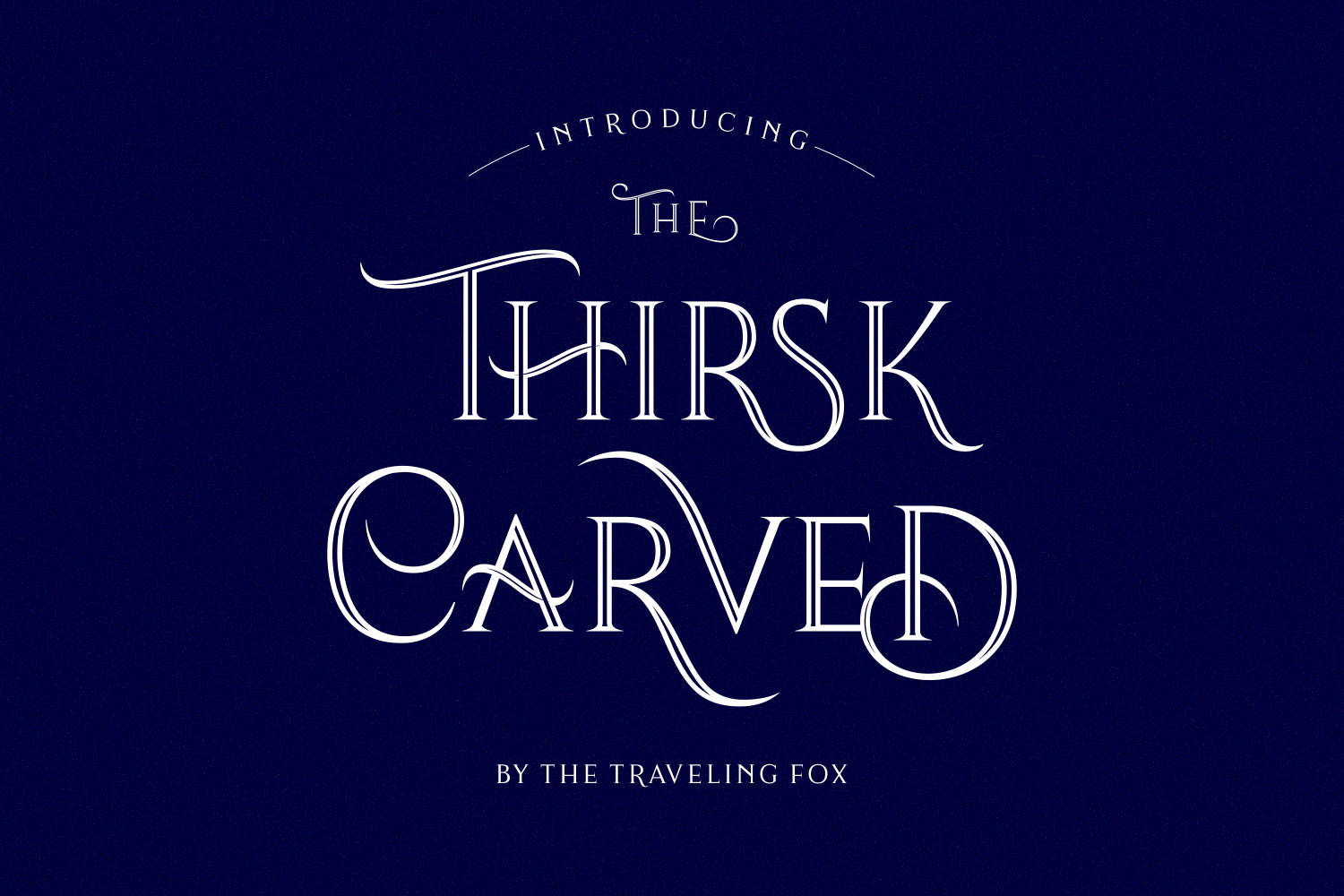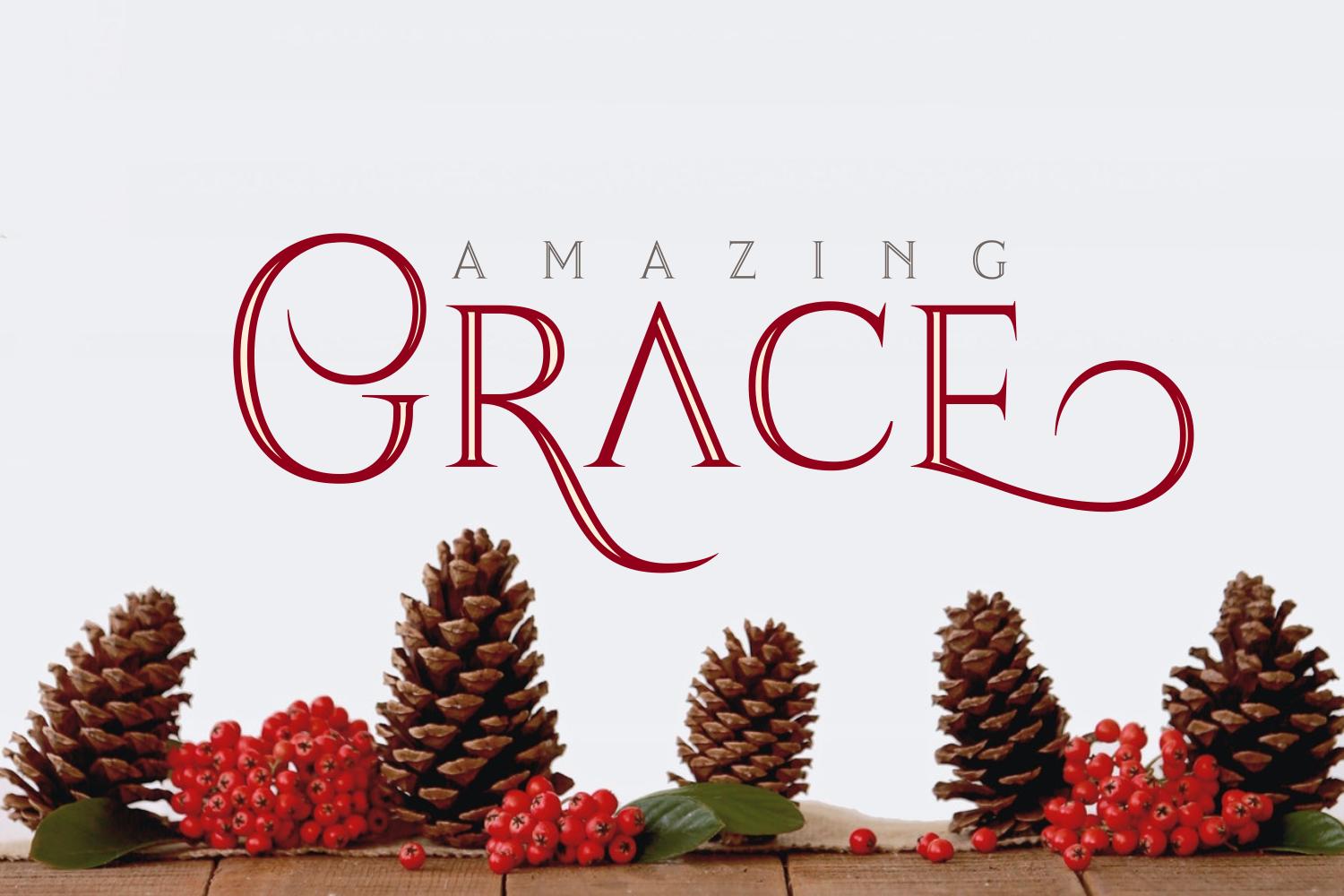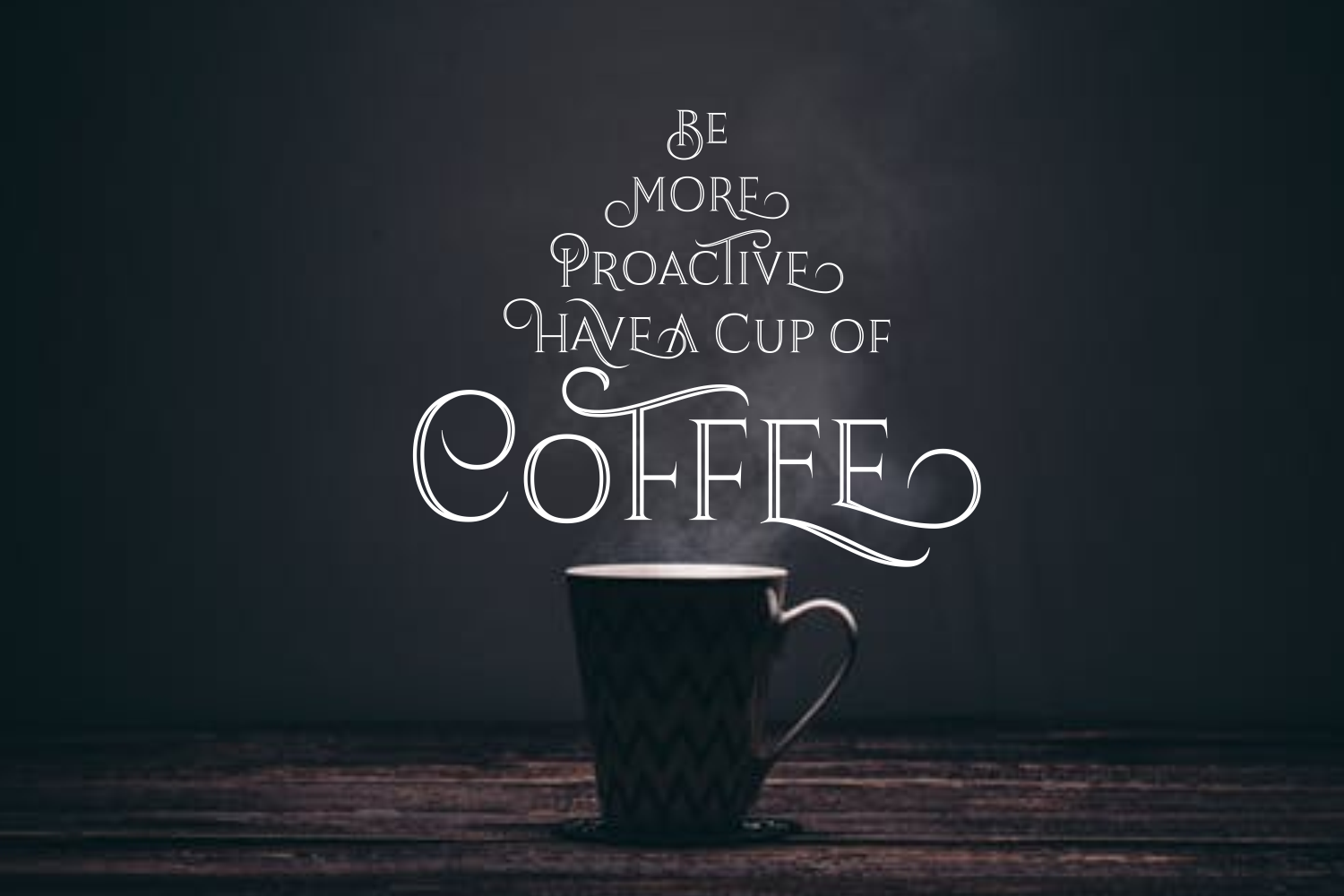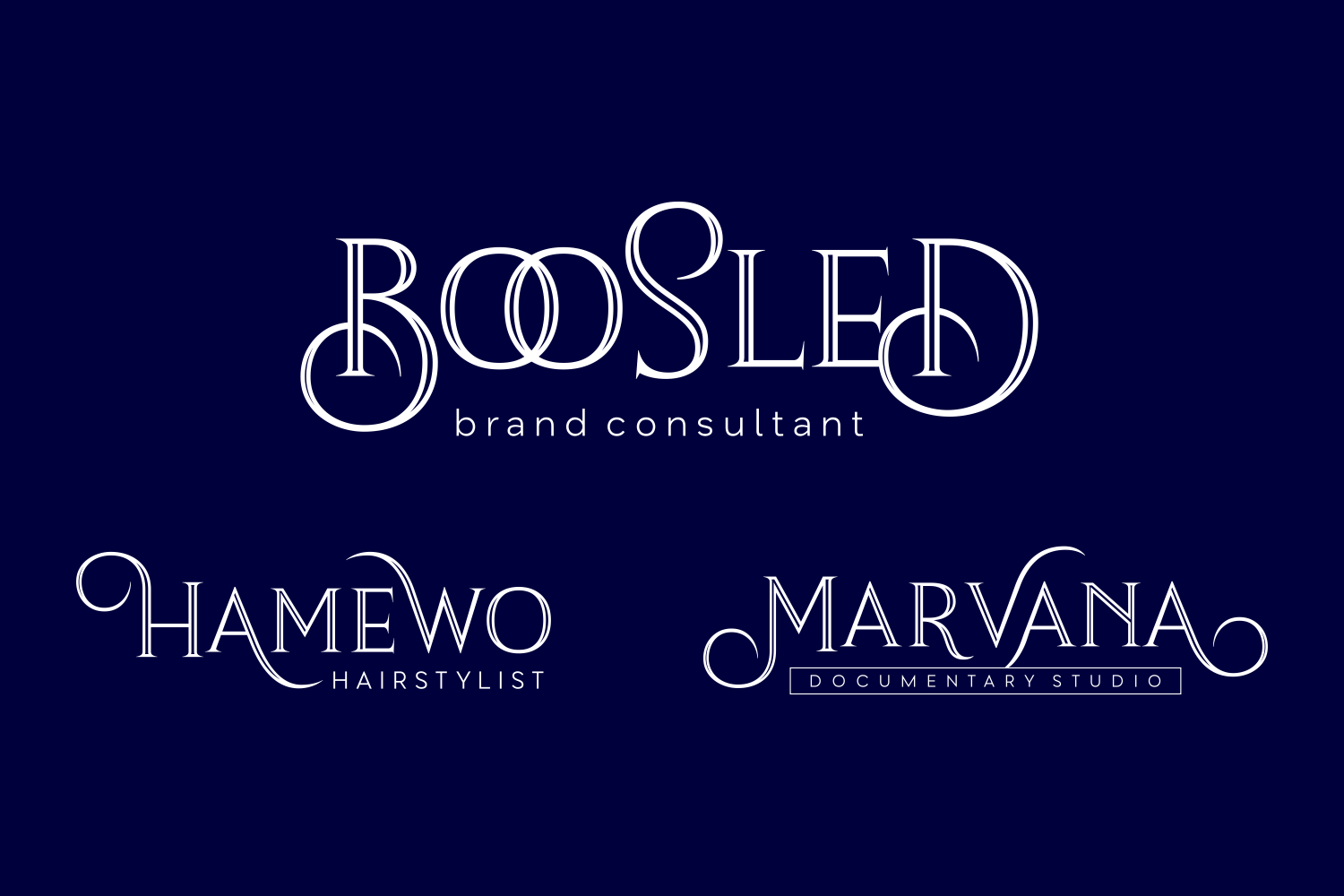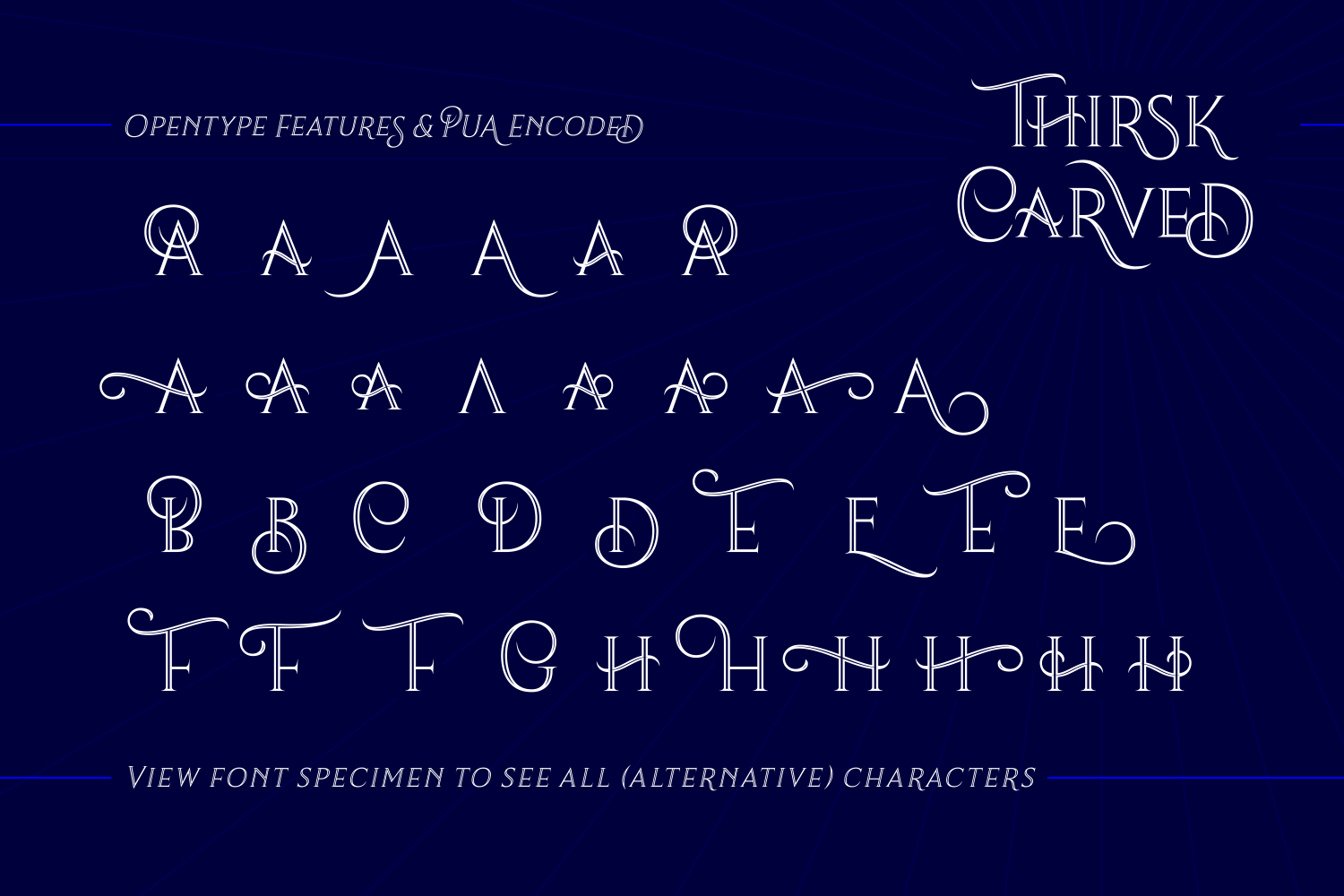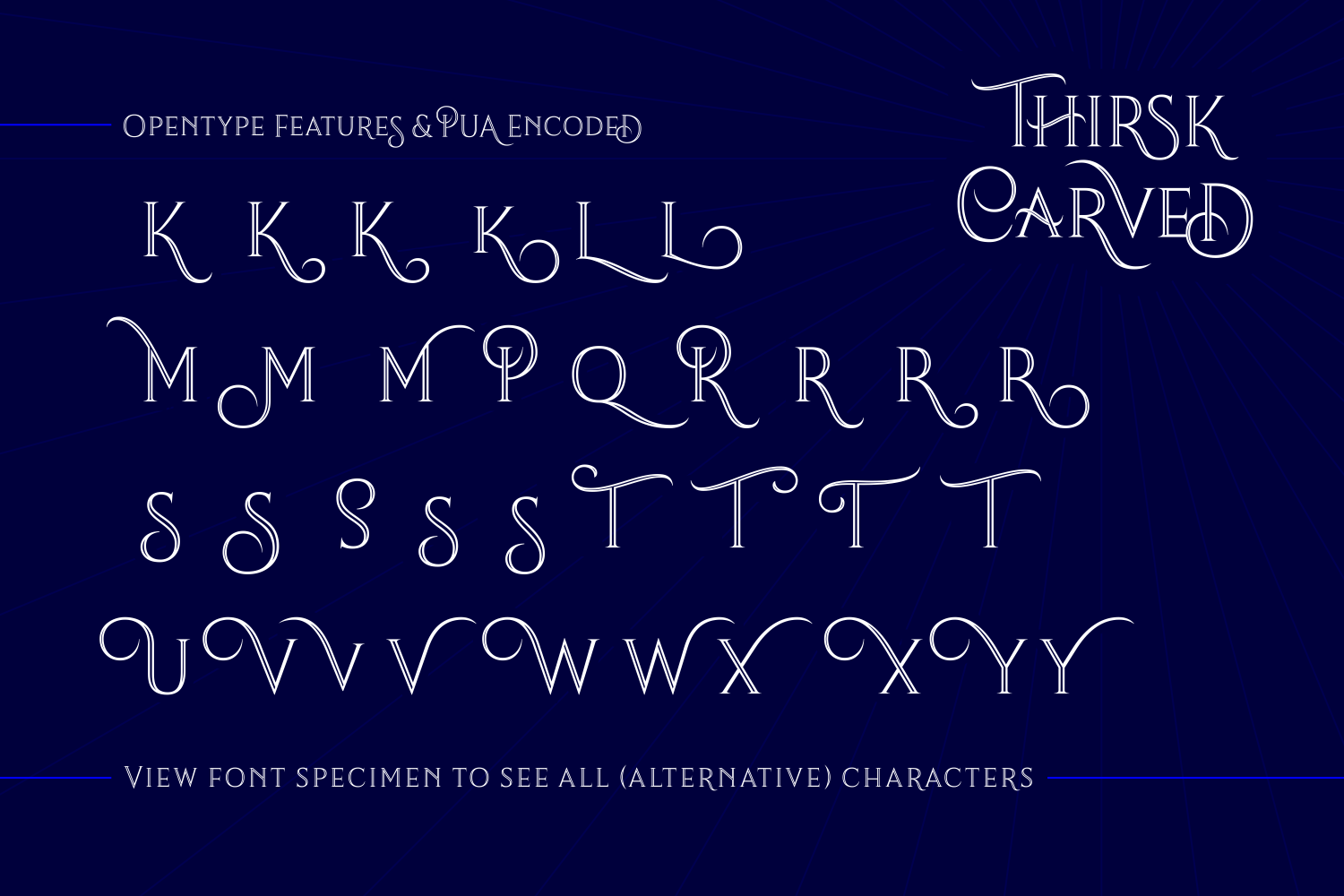
Thirsk Carved Font
Thirsk Carved is a decorative, vintage-looking serif.
The Thirsk Carved font is packed with alternates, making it a very versatile type that can be used in many different projects. No matter what kind of project you use it in, you will be sure to leave an impression. Its engraved detailing and classic charm make it perfect for logos, book covers, packaging, and branding that calls for a touch of old-world elegance. With its timeless character and intricate style, Thirsk Carved adds a rich, handcrafted feel to any design.